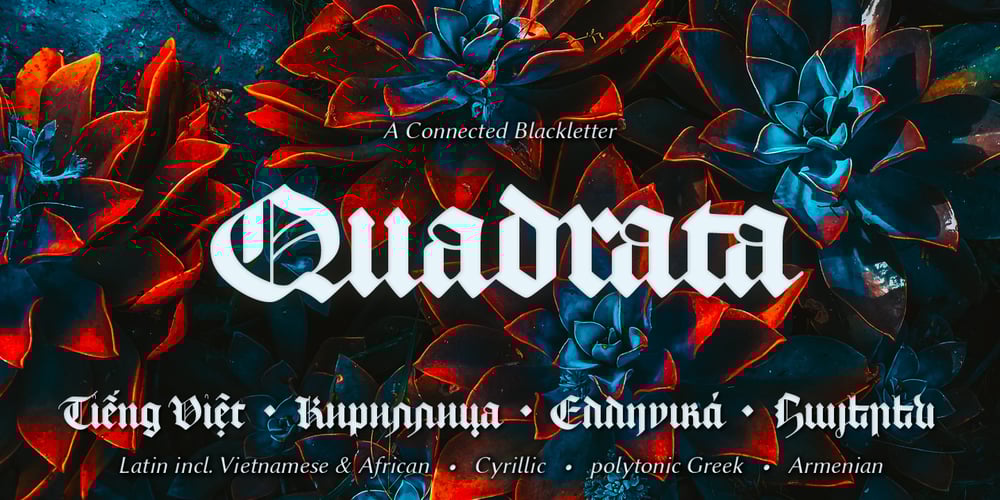
AJ Quadrata
AJ Quadrata font
AJ Quadrata Font Family was designed by Adam Jagosz and published by Adam Jagosz. AJ Quadrata contains 4 styles and family package options. Once, Blackletter was a calligraphy style. Full of ligatures, with letters bumping into each other to create an unapologetic picket-fence pattern. Some even claimed that the regularity improved legibility! But then Blackletter was cast into metal, and only a handful of established ligatures survived, while most interletter connections were disentangled. Everyone since followed suit, and hundreds of years later, digital Blackletter fonts were modelled mostly on the metal fonts that prevailed rather than the original handwriting. Up until now!AJ Quadrata is an authentic revival of the textura quadrata hand, and its major inspiration is a 15th-century Latin manuscript of the Bible from Zwolle, the Netherlands. The typeface is delivered in two flavors.The default cut is a modern take on textura quadrata that can be useful for today and tomorrow. The standard ligatures feature employs nearly all letters. The tittle of i retains its original, hasty squiggle form (except for the Turkish localization). Discretionary ligatures include medieval ligatures da, de, do, pa, pe, po (and their mixed-case counterparts!). Stylistic sets allow to use historic letter variants such as long s and rotunda r, closed-counter a, and alternate capitals.AJ Quadrata Medieval is perfect for setting Latin. Default forms of capital F, H and O are swapped with the alternates. The squiggles above i only appear for disamibiguation nearby m, n or u, as in original manuscripts. Discretionary ligatures and historic variants are promoted to the standard ligatures feature to make room in the discretionary ligatures feature for a variety of scribal abbreviations. Dedicated stylistic sets include medieval punctuation and justification alternates — glyphs with elongated terminals used for lengthening lines that end up too short.The Rubrum styles can be layered and colored to create the illuminated effect on the capital letters.Besides a faithful rendition of extended Latin including Vietnamese, numerous synthetic additions are included: polytonic Greek, Armenian, and Cyrillic (with Bulgarian and Serbian/Macedonian localizations).Both flavors of the typeface can be considered a starting point that can be further customized using OpenType features, including Stylistic Sets (some features differ between AJ Quadrata and AJ Quadrata Medieval): ss01 Alt E ss02 Descending F / Roman F ss03 Uncial H / Roman H ss04 Angular O / Round O ss05 Contextual closed-counter a ss06 Diamond-dot i j / Always dotted i, j ss07 Contextual rotunda r / No r rotunda ss08 Contextual long s / No long s ss09 Dotless y ss10 Serbian Cyrillic ss11 Alt Cyrillic de ss12 Alt Cyrillic zhe ss13 Alt Cyrillic sha ss14-ss17 [reserved for future use] ss18 Scribal punctuation ss19 Alt linking hyphen ss20 Justification alternates